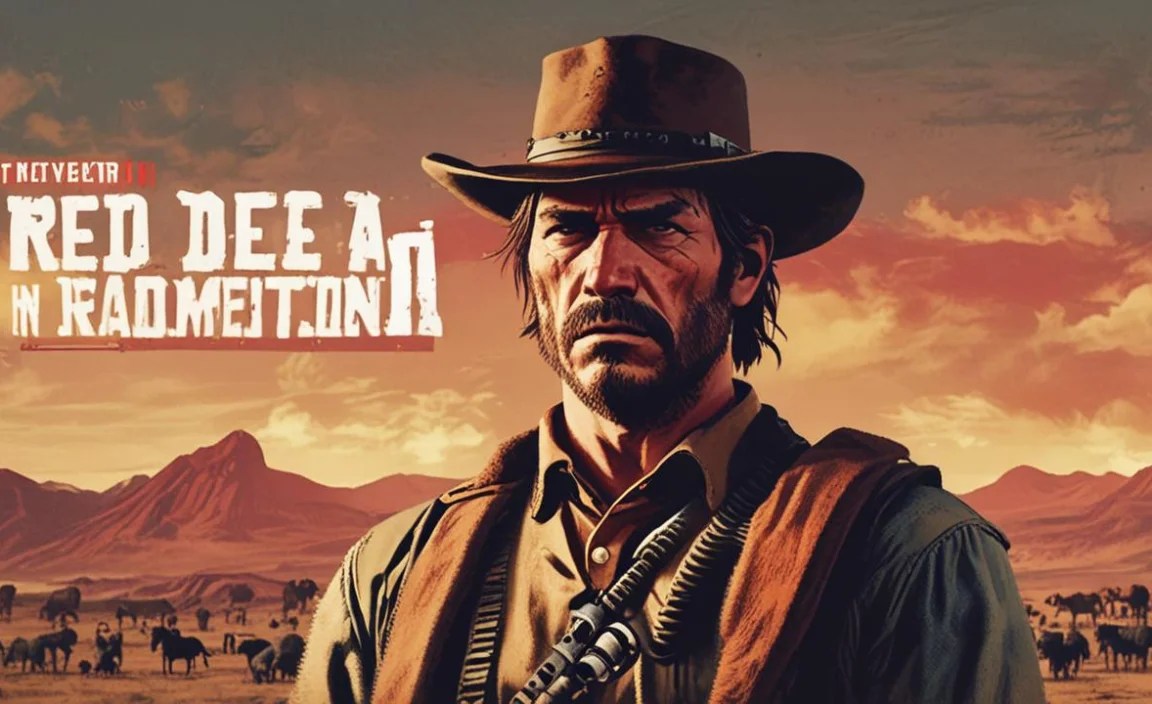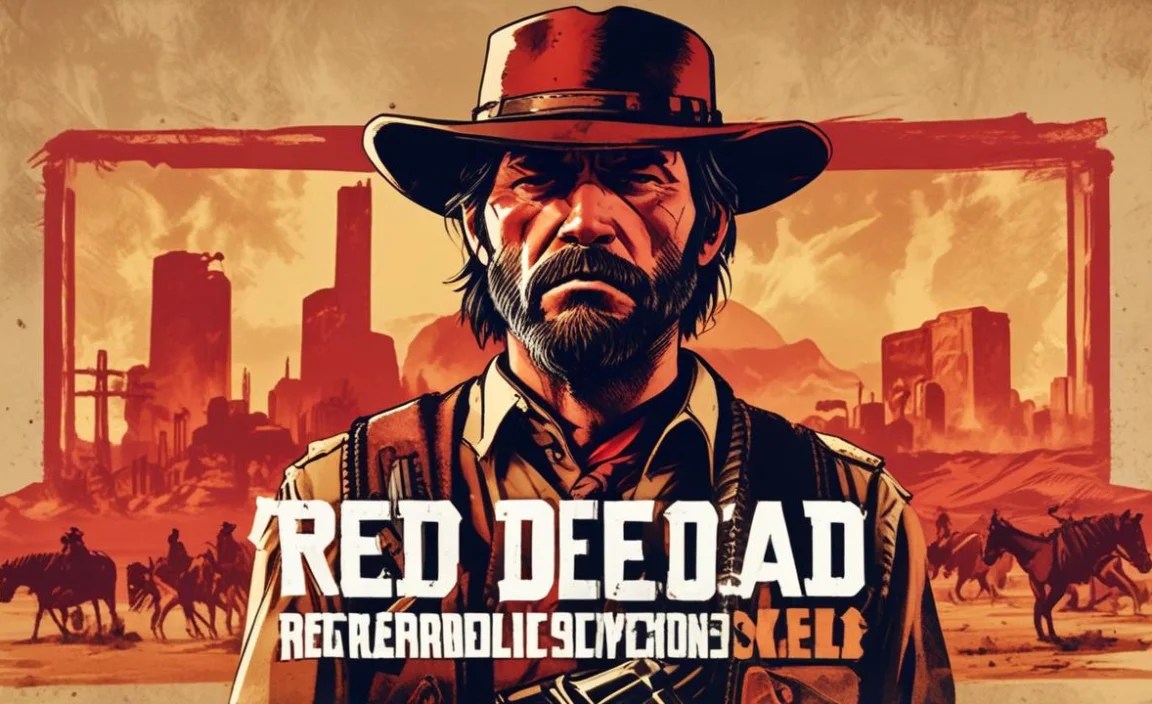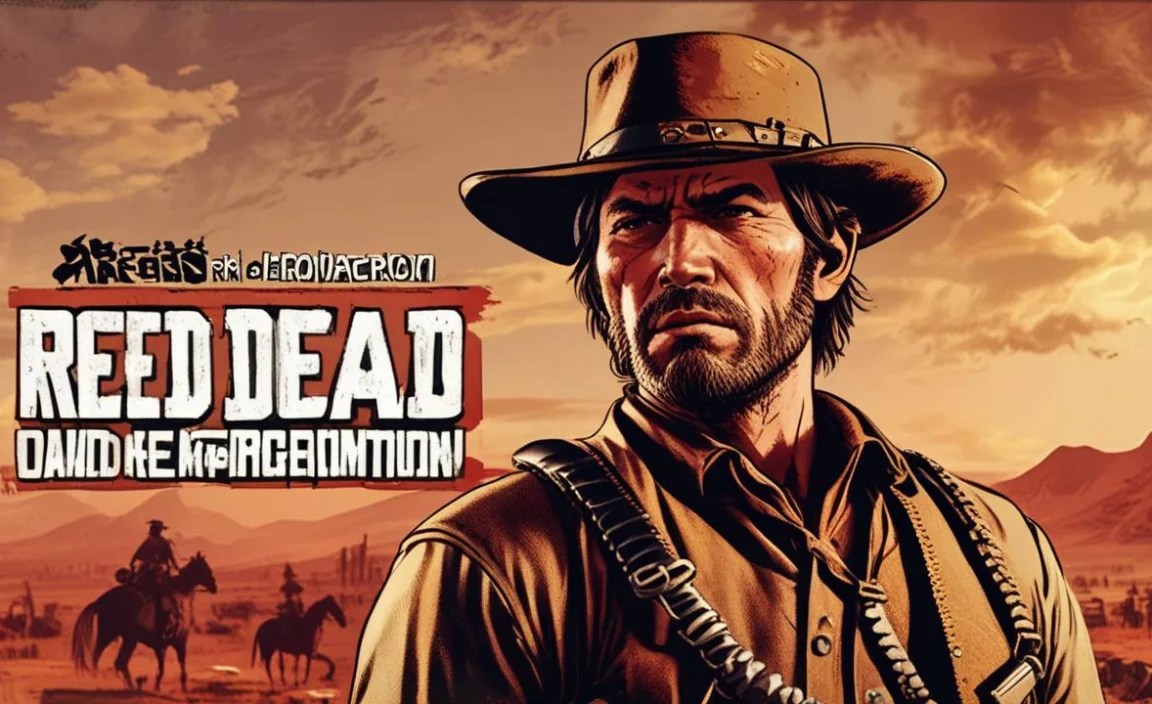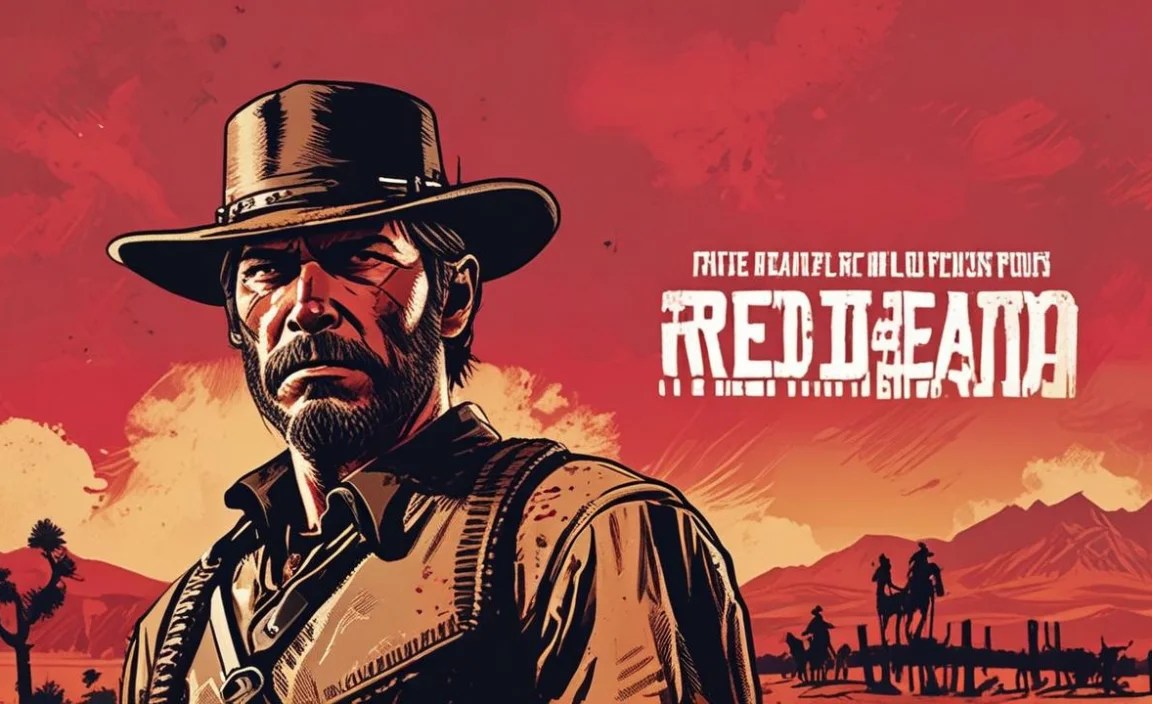
The Red Dead Redemption Font, used in the branding for the video game “Red Dead Redemption,” reflects the rugged and intense atmosphere of the Western-themed action-adventure game. The original font, “Chinese Rocks,” and its custom version “Redemption,” are integral to the game’s visual identity, embodying the gritty and dramatic essence of the series.
Red Dead Redemption Font Information
| Name | Red Dead Redemption Font |
| Style | Display |
| Designer | Typodermic Fonts (Rockstar North) |
| Type | Custom Serif |
Red Dead Redemption Font Family Includes
- Chinese Rocks Regular
- Redemption Regular
- Red Dead
- Redemption Italic
- Redemption Condensed Regular
- Redemption Condensed Italic
- Redemption Expanded Regular
- Redemption Expanded Italic
- Redemption Shadow Regular
- Redemption Shadow Italic
- Redemption Shadow Condensed Regular
- Redemption Shadow Condensed Italic
Where Red Dead Redemption Font Is In Use
The Red Dead Redemption Font is crucial for establishing the game’s visual identity. Its distinctive style enhances various design elements, including:
- Posters
- Game Box Art
- Official Website
- Promotional Materials
- In-Game Menus and Graphics
- Merchandise
- Apparel
- Marketing Campaigns
- Game Covers
- Media Graphics
Red Dead Redemption Font FAQs
1. Why Is The Red Dead Redemption Font Popular In Gaming Branding?
The font’s bold and rugged design aligns perfectly with the game’s Western theme, enhancing its visual impact and authenticity.
2. Are There Any Special Characters In He Red Dead Redemption Font?
Redemption includes special logotype glyphs and an expanded character set, including Cyrillic characters not present in the original Chinese Rocks font.
5. What Are The Different Versions Of Red Dead Redemption Font?
Redemption includes styles like Regular, Condensed, Expanded, and Shadow, each available in both regular and italic versions, providing a versatile toolkit for branding and design.